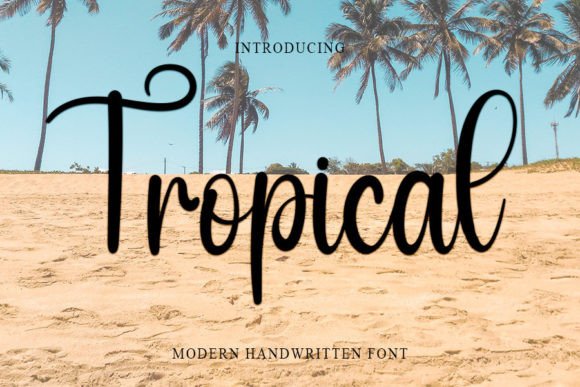
About Tropical Font
“Tropical” is a neat and beautiful handwritten font characterized by an elegant touch, making it an ideal choice for your favorite projects. Its distinct and timeless style sets it apart, inviting you to fall in love with its charm and utilize it to create spectacular designs.
The neat and beautiful qualities of “Tropical” are evident in its carefully crafted characters. The font’s elegant touch adds a sense of refinement, making it well-suited for a variety of design projects where a polished and stylish look is desired.
The distinct and timeless style of “Tropical” contributes to its versatility, allowing it to seamlessly adapt to different creative applications. Whether applied to branding materials, invitations, posters, or any design project, “Tropical” brings a touch of sophistication that enhances the overall aesthetic.
The font invites you to infuse your projects with an elegant and timeless appeal. Its handwritten quality adds a personal and authentic touch, making it particularly well-suited for designs that require a combination of neatness and beauty.
In summary, “Tropical” is more than just a font; it’s a neat and beautiful design tool that enhances the visual appeal of your projects. Fall in love with its distinct and timeless style, and use it to create spectacular designs that resonate with sophistication and charm across a range of creative endeavors.